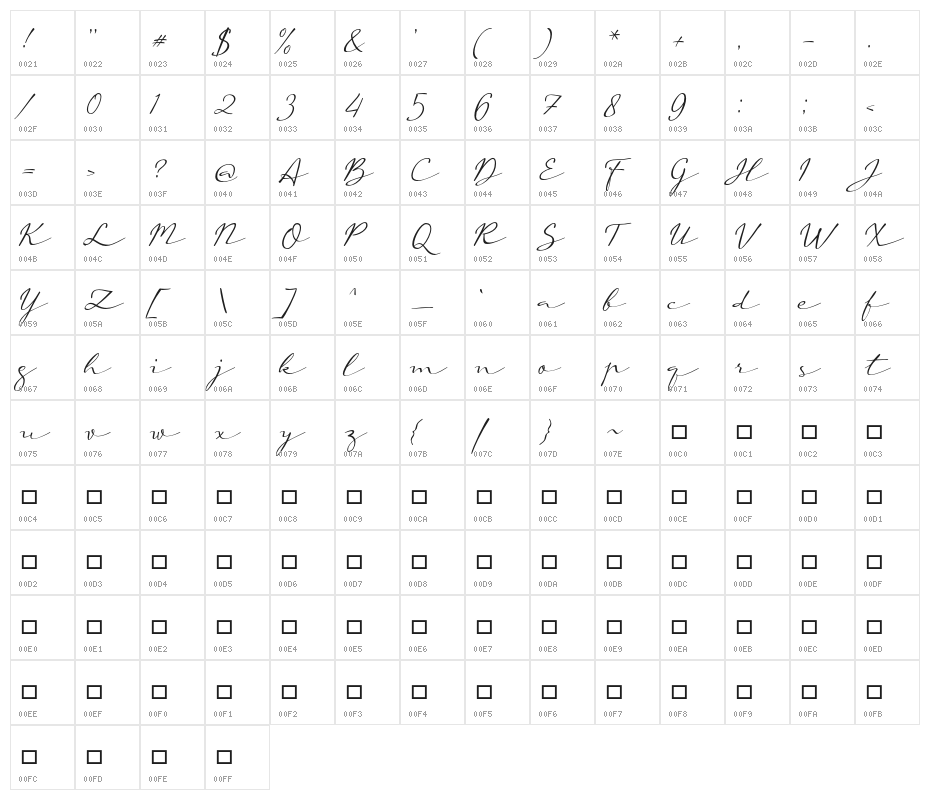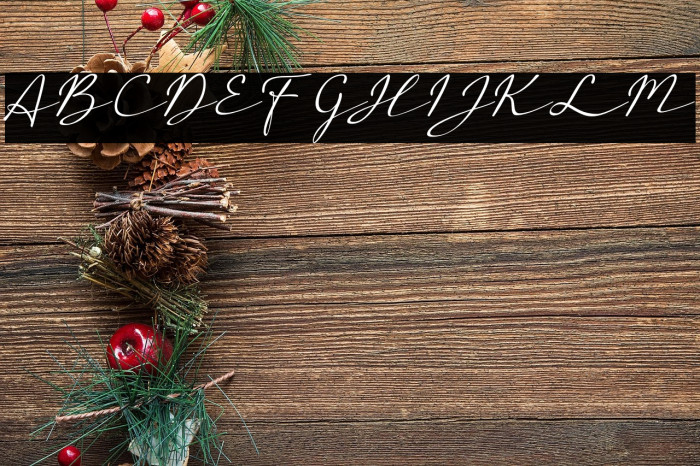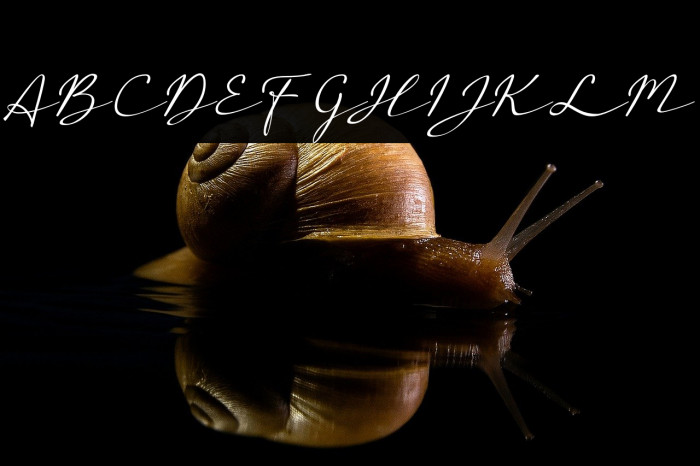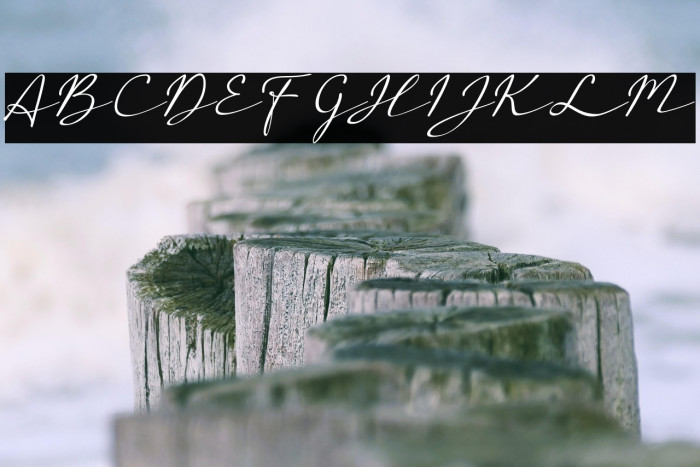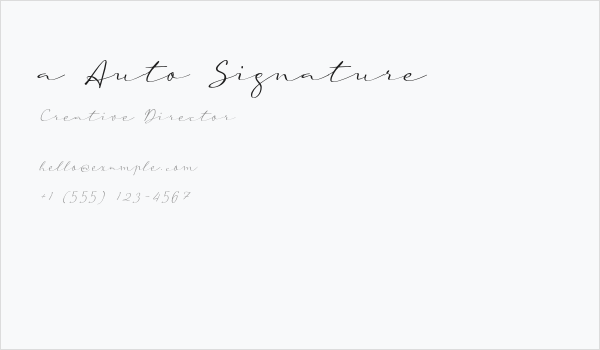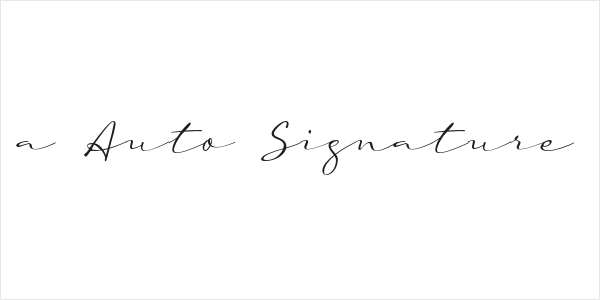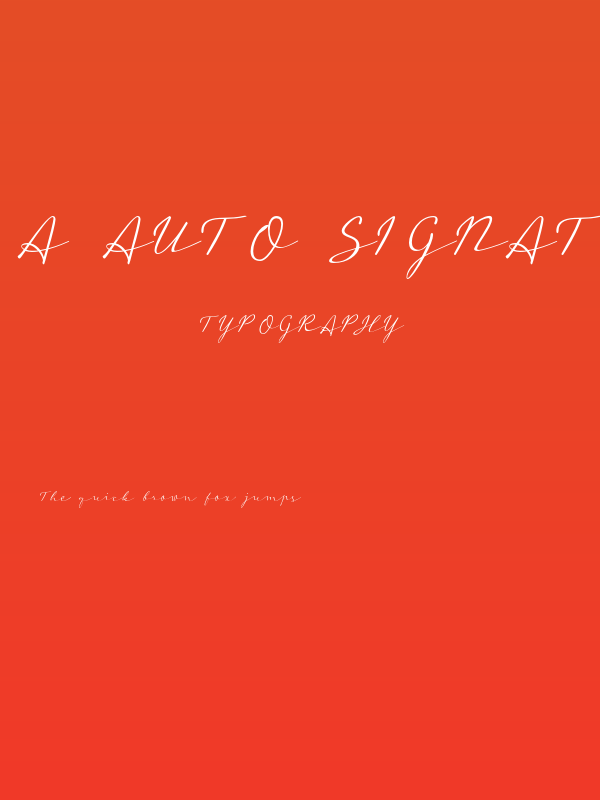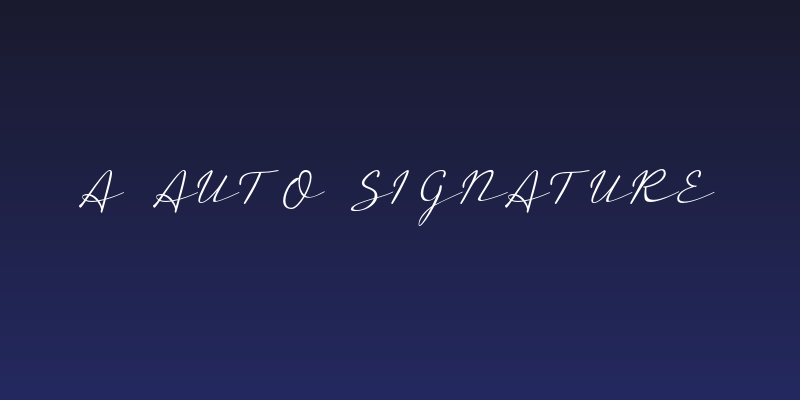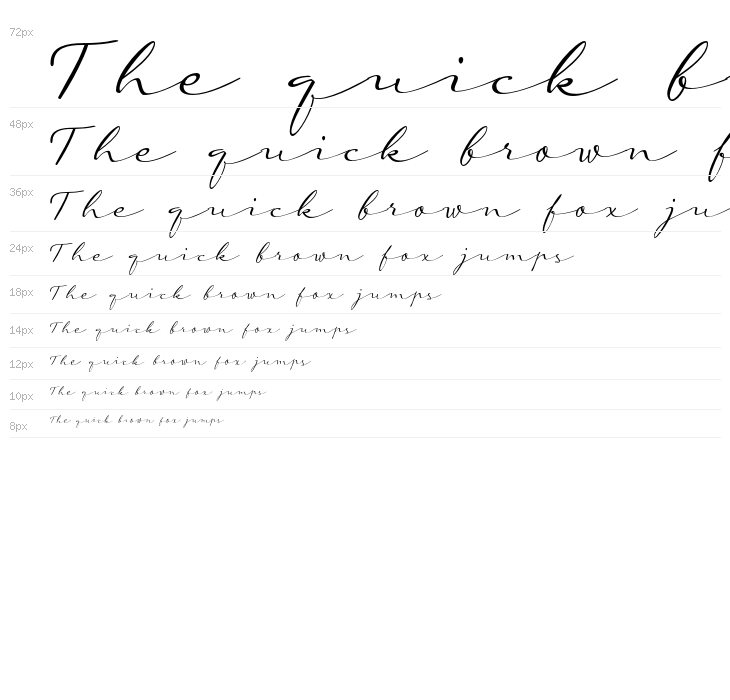
a Auto Signature Font
a Auto Signature Description
This font exudes elegance and sophistication with its fluid, cursive style. The characters are gracefully connected, mimicking the natural flow of handwriting. Each letter is delicately formed with thin, consistent strokes that convey a sense of refinement and grace. The uppercase letters stand tall with a slight slant, while the lowercase letters maintain a harmonious balance, enhancing readability. The numerals are equally elegant, with a slight flair that complements the overall aesthetic. Special characters are thoughtfully designed to integrate seamlessly with the alphabet, maintaining the font's cohesive look. This font is perfect for projects that require a personal touch, such as invitations, greeting cards, or branding materials that aim to convey a sense of luxury and attention to detail.
| Overall Style | Elegant, Sophisticated |
| Use Case | Headlines, Invitations, Personal Branding |
| Proposed Projects | Ideal for wedding invitations, personal branding, greeting cards, and luxury product packaging. |